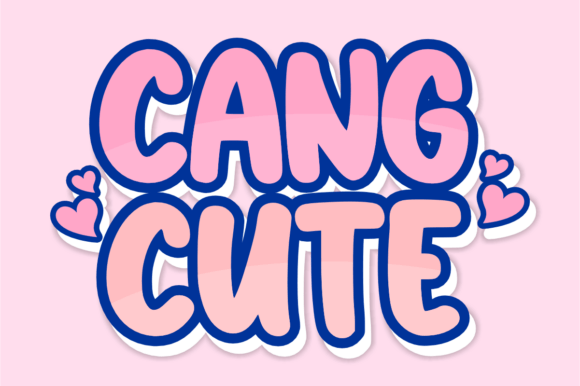
Discover the Playful Charm of Cang Cute Font
Have you ever been in the middle of a design project, and suddenly, you just can’t seem to find the right font? I recall a recent experience where I was working on a streetwear branding project, and my client requested a font that was both “cool” and “adorable.” After hours of searching, I stumbled upon the Cang Cute Font 🍭, and it instantly became the star of the show! ✨
A Font that Packs a Punch
The Cang Cute font is a playful, stacked aesthetic font that adds a burst of energy and depth to any design. Its trendy, offset style creates an instant 3D effect without the extra effort, making it perfect for designers, crafters, and creative hobbyists looking to make a statement.
What I Love About Cang Cute Font
• ✨ Eye-catching design: The font’s bubbly, rounded letterforms and clean layers strike the perfect balance between cool and adorable.
• ✅ Easy to use: The font features thick, overlapping letters with a distinct outline and highlight effect, making it easy to create stunning designs.
• 💥 Attention-grabbing: The Cang Cute font demands attention through its sheer visual presence, making it ideal for bold posters, custom stickers, and t-shirt designs.
While the Cang Cute font is amazing, there are a few things to keep in mind: 🤔
• ⚠️ Legibility at small sizes: Due to its bold and stacked design, the font may not be suitable for small text sizes or body copy.
• ⚠️ Limited formal use: The font’s playful nature makes it less suitable for formal or professional designs, such as business reports or academic papers.
Exploring OpenType Features
The Cang Cute font features a range of OpenType features, including:
Feature Description
Stylistic Alternates Provides alternative letterforms for creative variation.
Glyphs Offers a range of additional characters and symbols.
The Designer Inspiration Behind Cang Cute
The Cang Cute font was inspired by the playful aesthetics of early 2000s streetwear and pop culture. The designer aimed to create a font that captured the essence of this era, with its bold, colorful, and playful vibe.
Q: What type of designs is Cang Cute best suited for?
A: Cang Cute is perfect for streetwear branding, trendy accessories, pop-culture-inspired digital art, custom stickers, t-shirt designs, and bold posters.
Q: Is Cang Cute available in different weights or styles?
A: Currently, Cang Cute is available in a single weight. However, the font’s versatility and OpenType features allow for creative variation and experimentation.